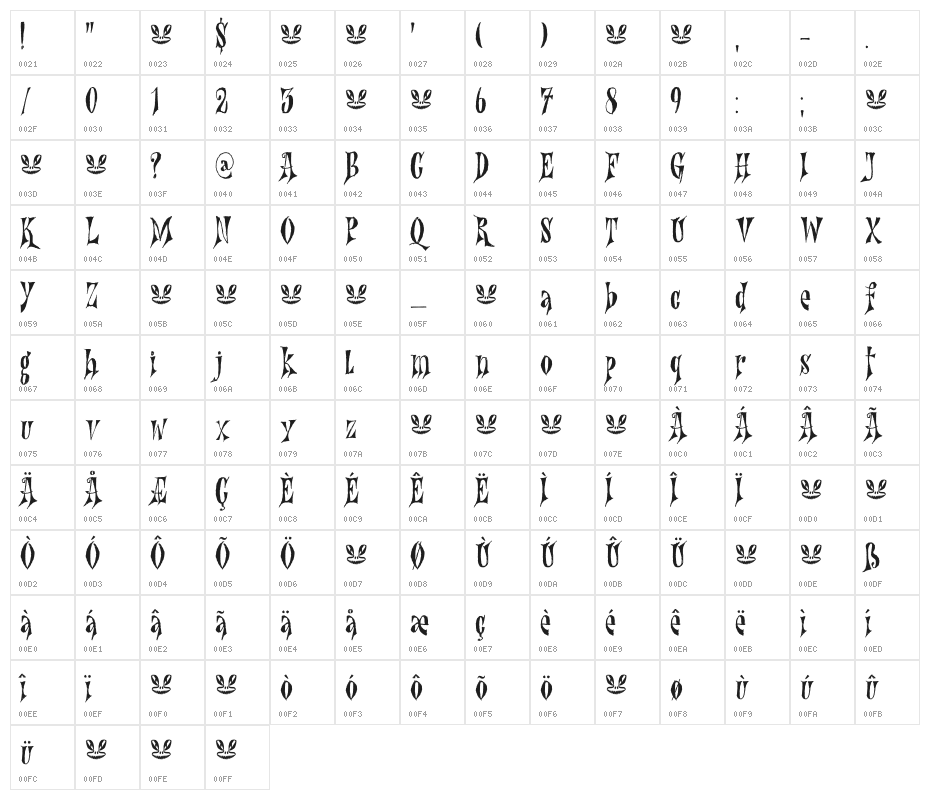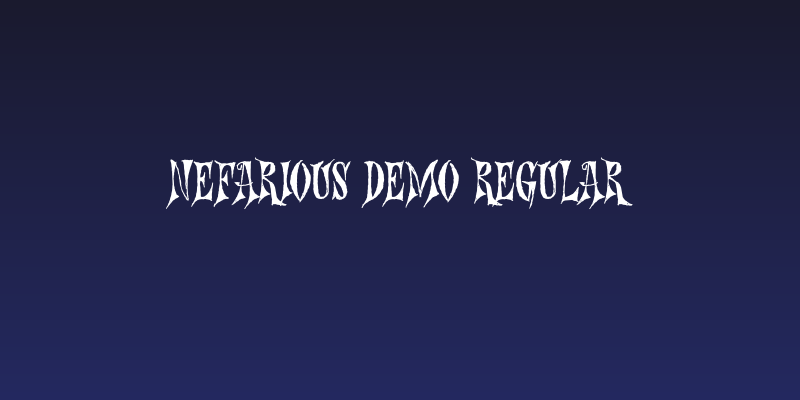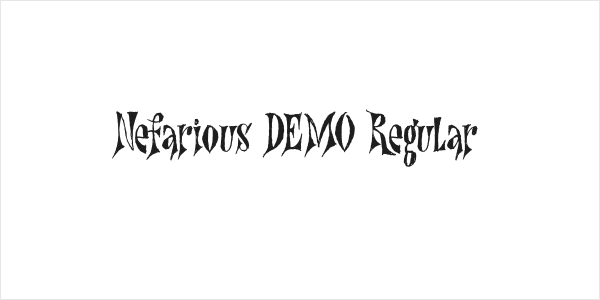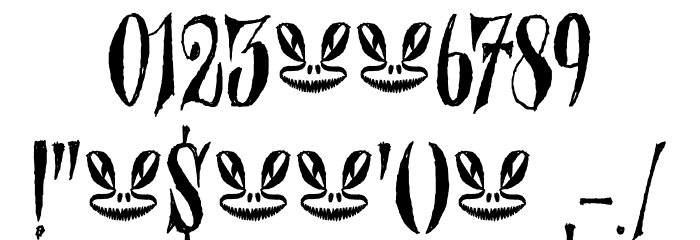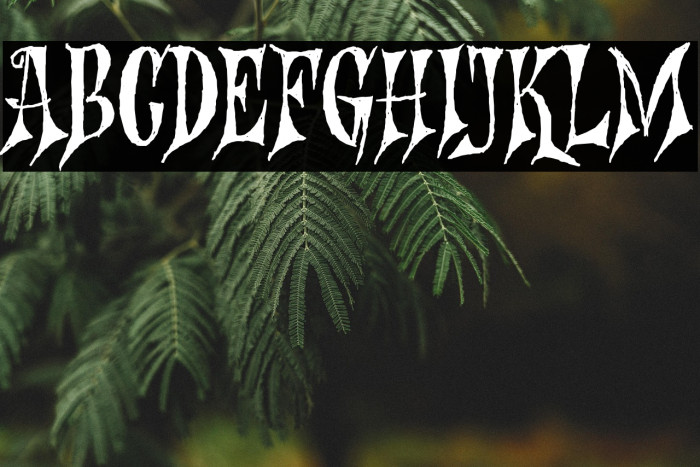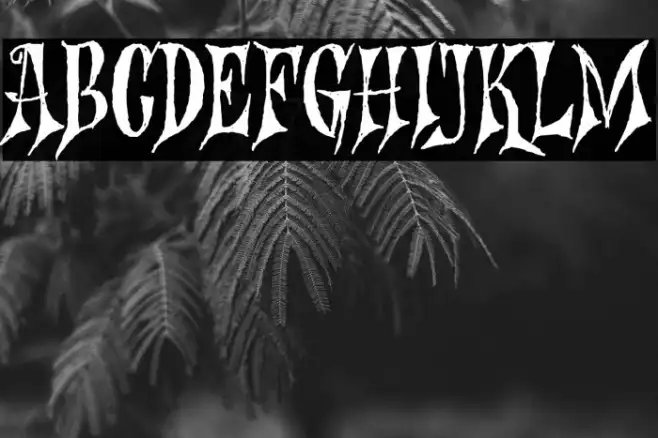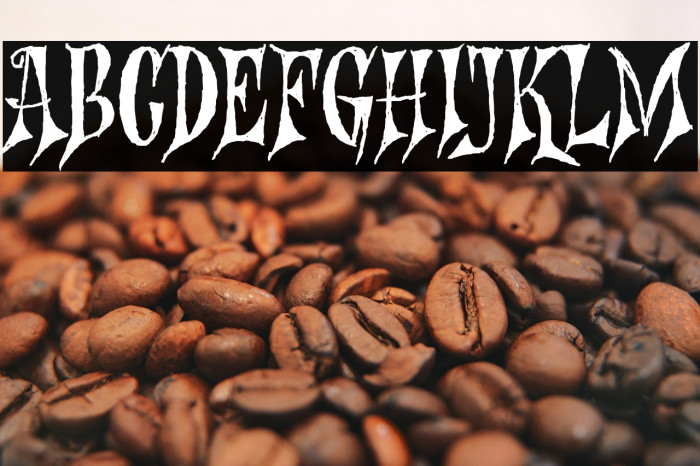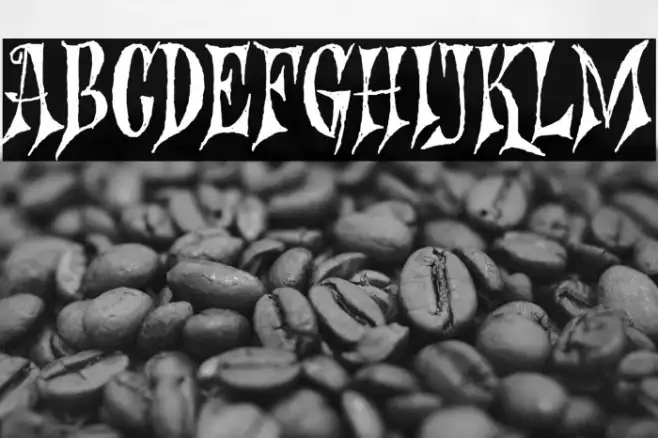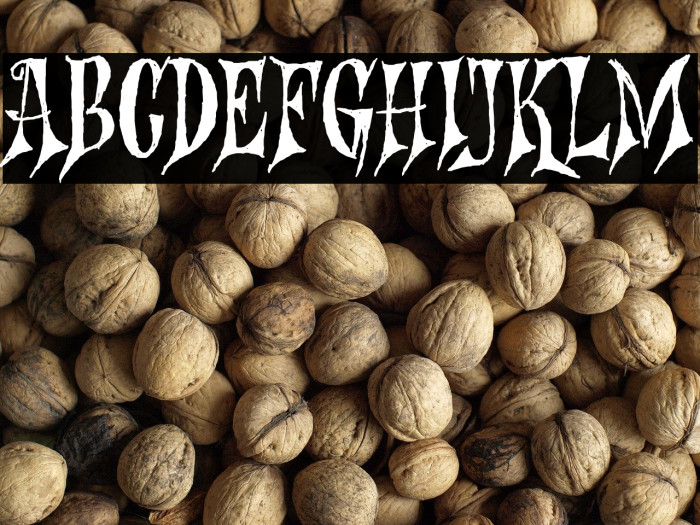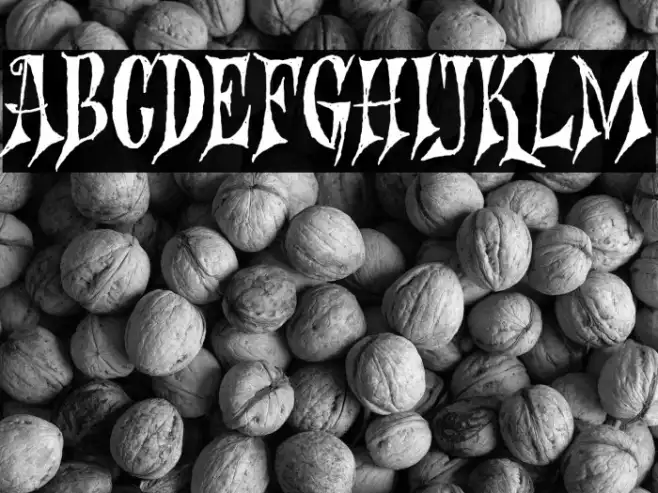
Nefarious DEMO Regular Font
Nefarious DEMO Regular Description
This font features a distinctive and edgy design, characterized by sharp, angular lines and a gothic-inspired aesthetic. The uppercase letters are bold and dramatic, with exaggerated serifs and pointed edges that give a sense of intensity and intrigue. The lowercase letters maintain the same sharpness, offering a cohesive look across the alphabet. Numbers and special characters are equally stylized, incorporating unique elements that enhance the font's overall mysterious and dark theme. This font is perfect for projects that require a bold statement and a touch of the macabre.
| Overall Style | Gothic, Edgy, Dramatic |
| Proposed Projects | Ideal for horror-themed posters, Halloween invitations, gothic book covers, and edgy branding materials. |